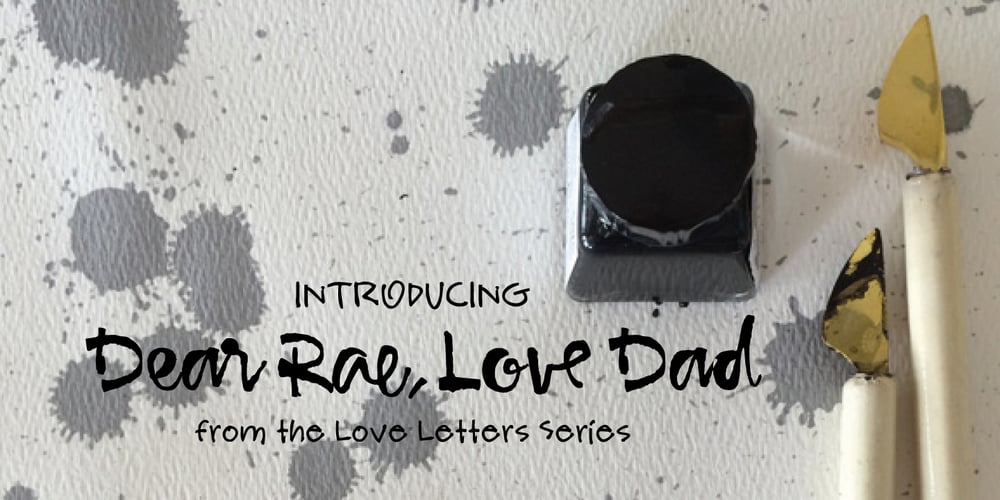
Dear Rae, Love Dad Font Family was designed by Rae Kaiser and published by Outside the Line. Dear Rae, Love Dad contains 1 styles and family package options. Dear Rae, Love Dad is a modern calligraphy font drawn by hand using ink and a folded nib dip pen on rough watercolor paper. Best used in Open Type apps, it has automatically changing alternates. It is upright, dramatic, and personal. It is named Dear Rae, Love Dad because who wouldn’t like to get a letter signed, Love Dad. There is also a freebie font of several blobs and some hearts. Because it just seems right.